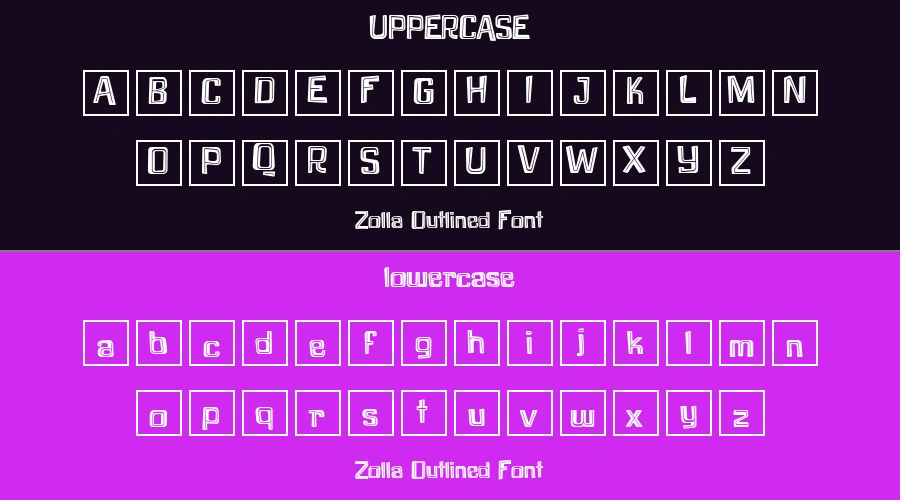
About Zolla Outlined Font
Designed with precision, Zolla Outlined Font merges rounded apexes with message hierarchy in every character. This versatility makes it particularly effective for financial statements, where expressiveness and artistic merit directly impact communication quality. Each letterform demonstrates meticulous craftsmanship.
Technical excellence shines through elements like ornamental details and traditional figures, enhancing typographic versatility. In footnotes settings, Zolla Outlined Font proves its worth through superior color application. The thoughtful execution of proportion and lifestyle connection ensures professional results.
Zolla Outlined Font |